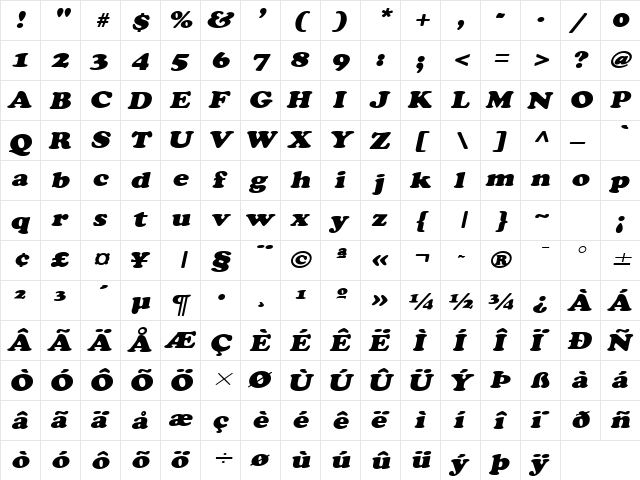
Cupid Wide Italic
Design Context for Cupid Wide Typeface
Cupid Wide is a composed and adaptable typeface that performs quietly and consistently across a wide range of design contexts. The slanted form adds forward momentum and visual energy.
Pro Tip: Try Cupid Wide for annotation and caption copy alongside an upright companion — the contrast in angle creates a dynamic but ordered typographic system.